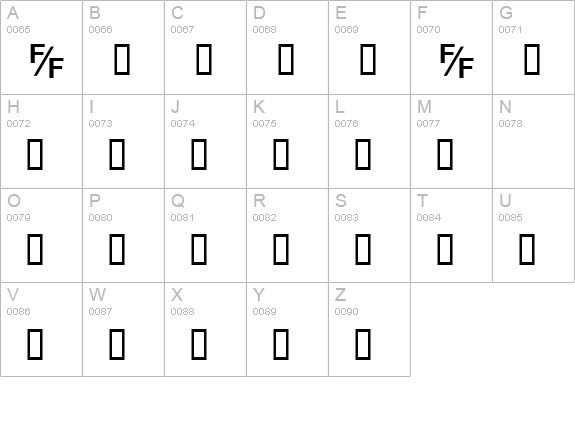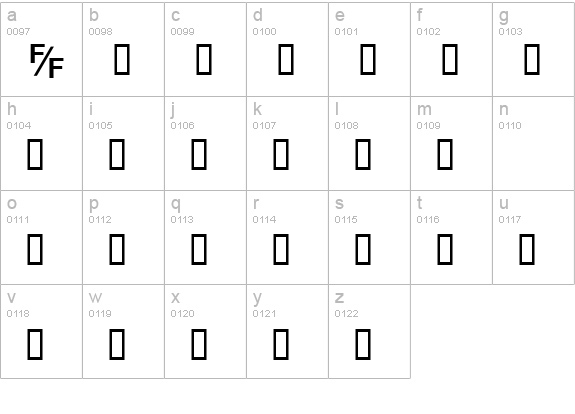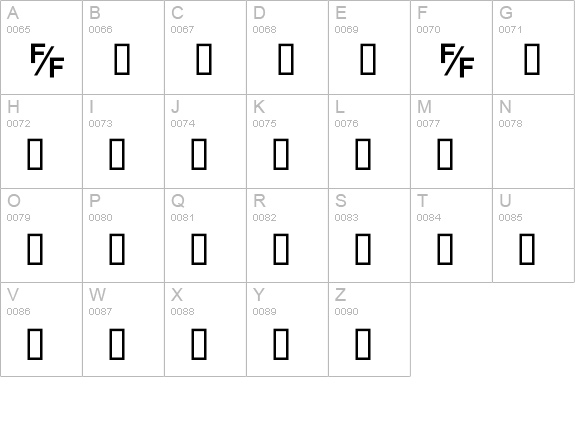
HelvFE Bold Font Details
HelvFE Bold is a strong, high-contrast variant in the HelvFE typeface family \xE2\x80\x94 well suited to headlines, attention-grabbing titles, and strong calls-to-action.
HelvFE Bold font is a striking and modern typeface that exudes confidence and professionalism. With its bold weight and clean lines, this font is perfect for making a bold statement in your designs. Whether you're creating eye-catching headlines or sleek logos, HelvFE Bold will help you stand out from the crowd. The best part is that HelvFE Bold font is available for free download at FontsMarket.com. This means you can easily add this versatile font to your collection without any cost. Don't miss out on the opportunity to enhance your designs with the bold and impactful HelvFE Bold font today!